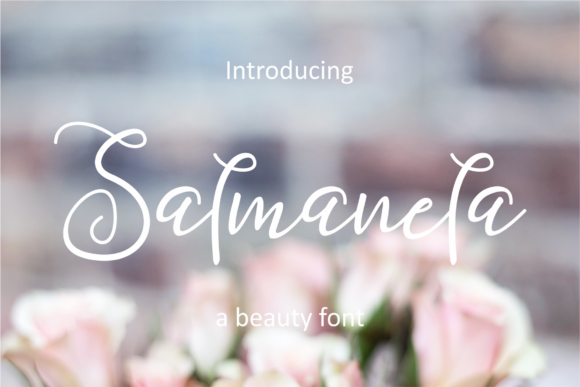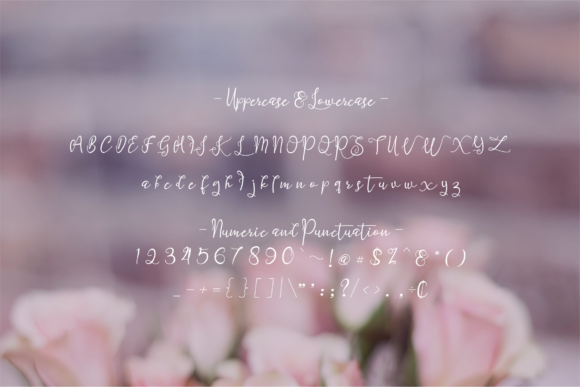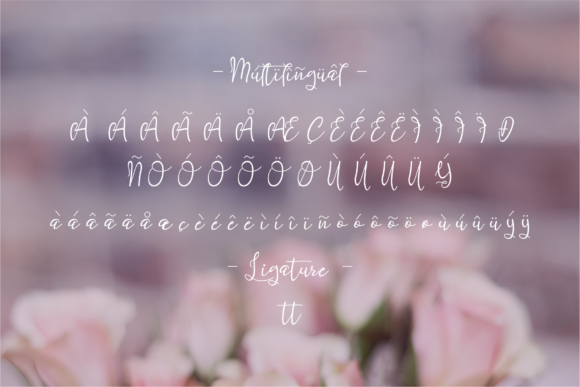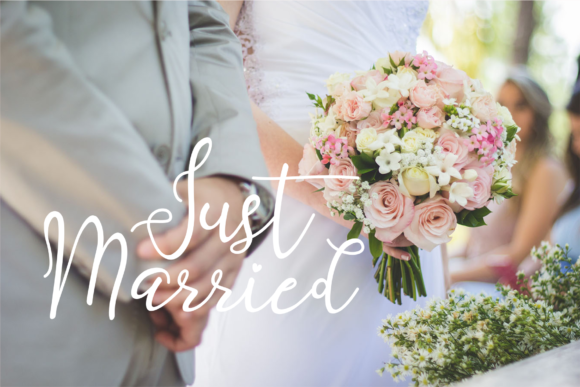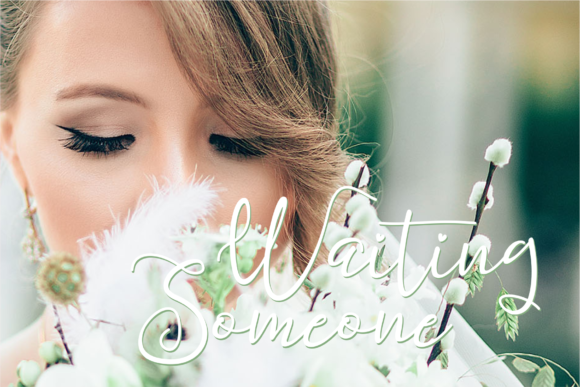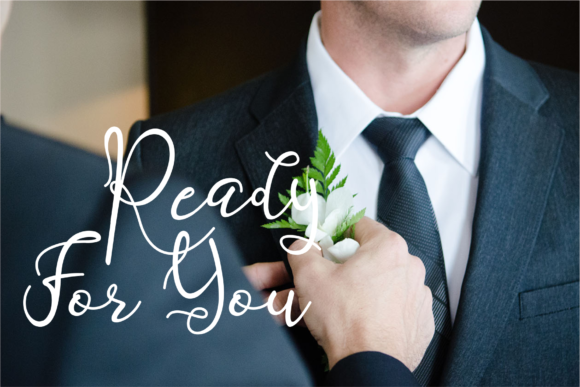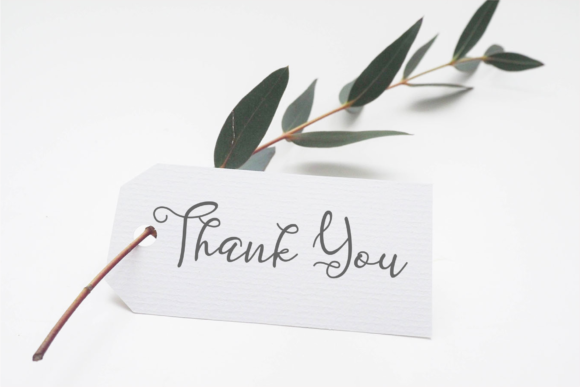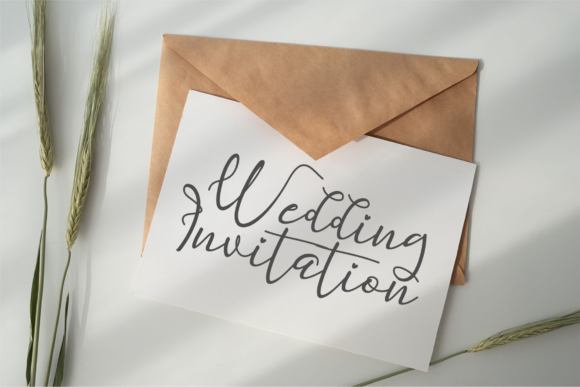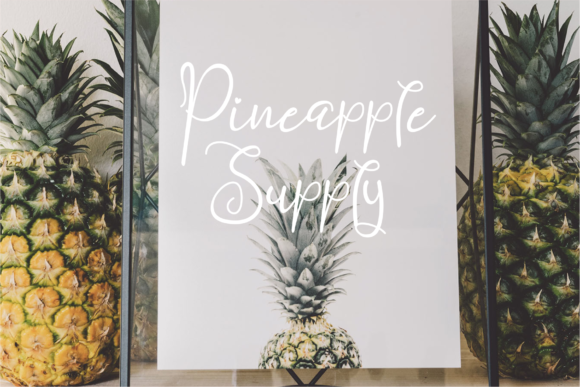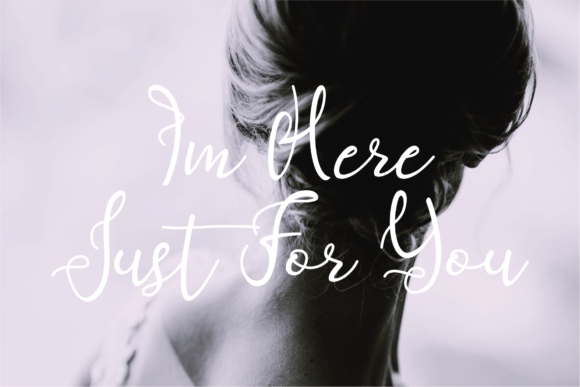
Salmanela Font
About Salmanela Font
Salmanela is an exquisite handwritten font, designed to outrun your expectations. Relaxed and timeless, this font will easily become a true must have!